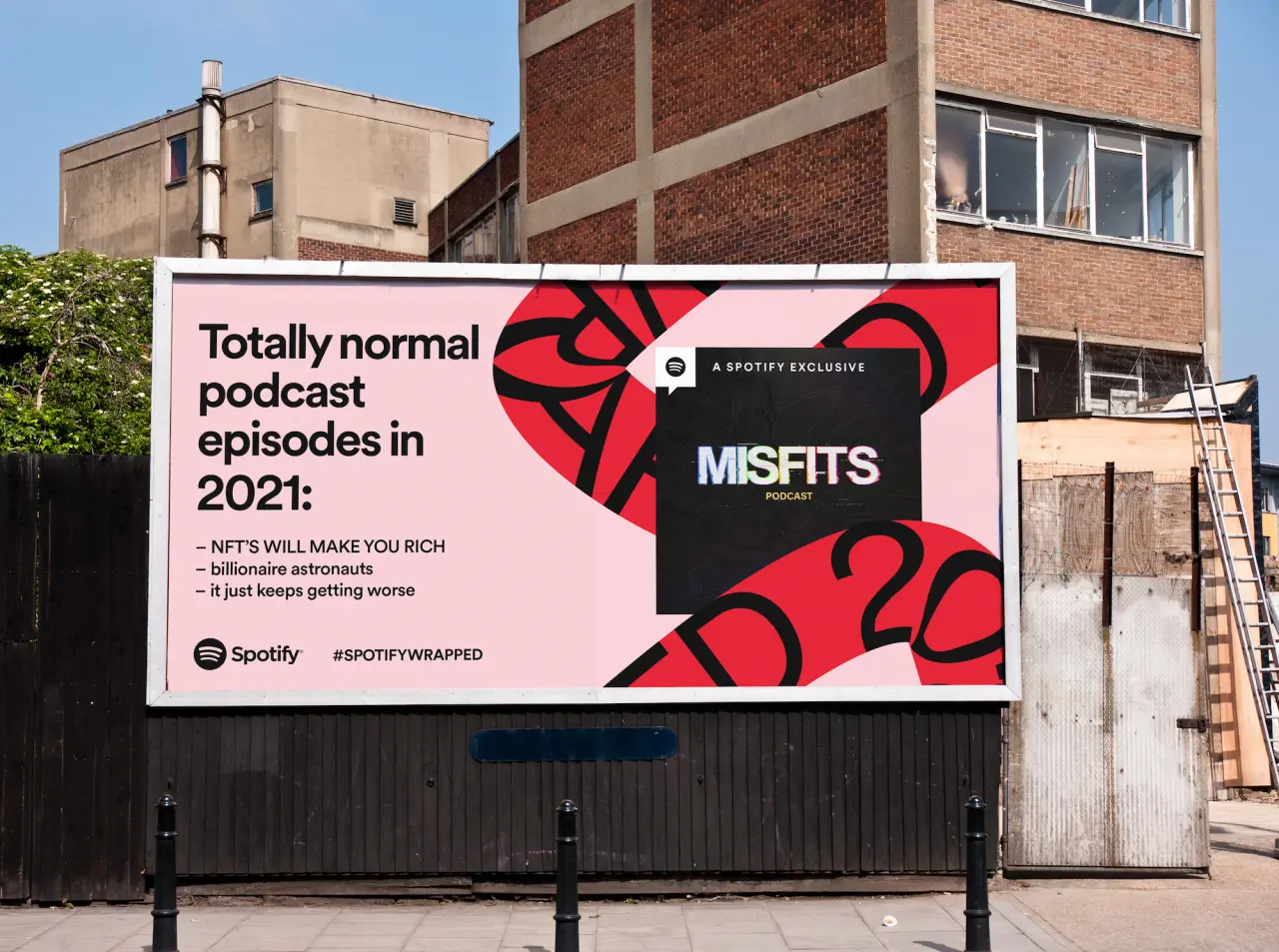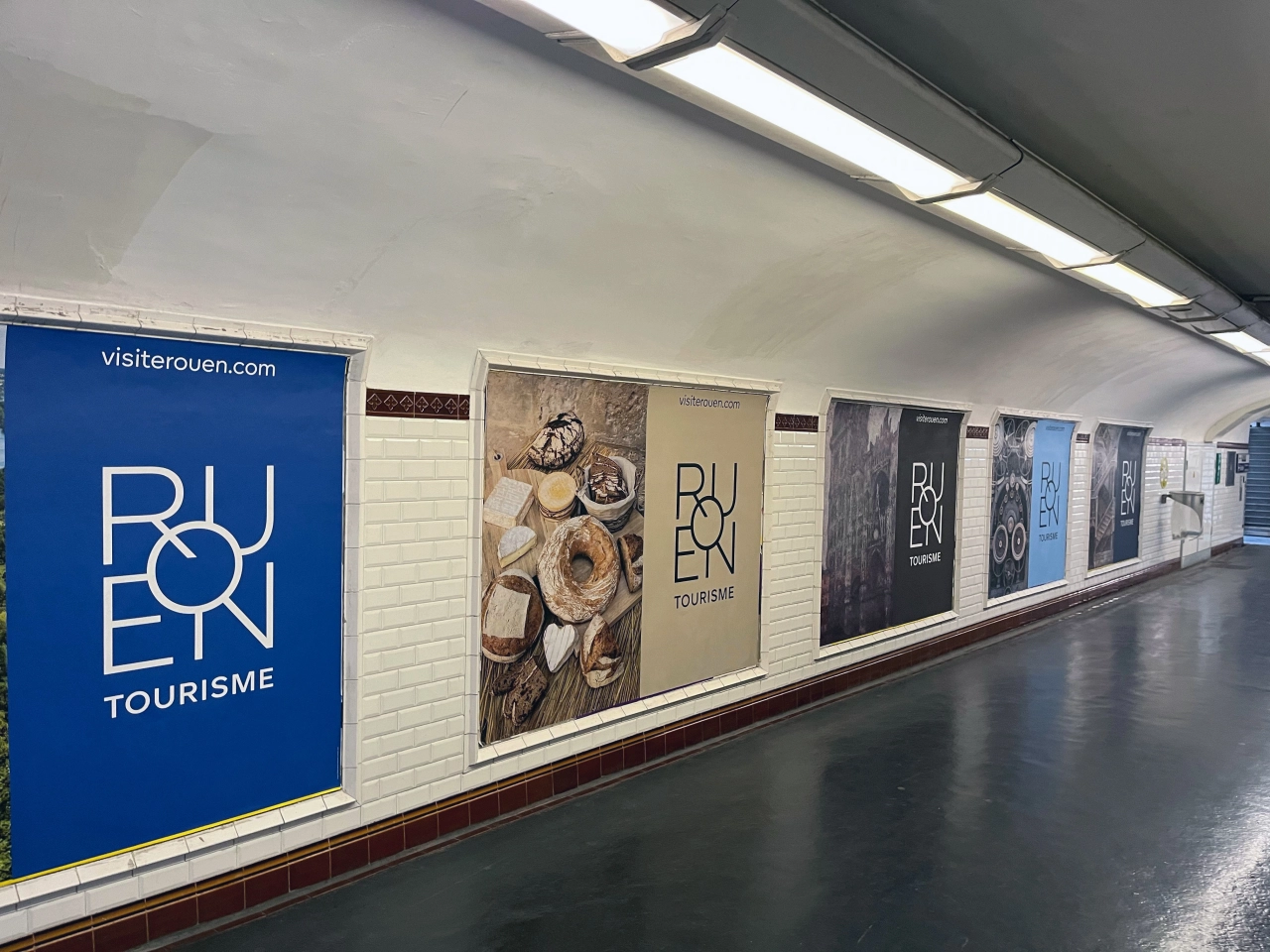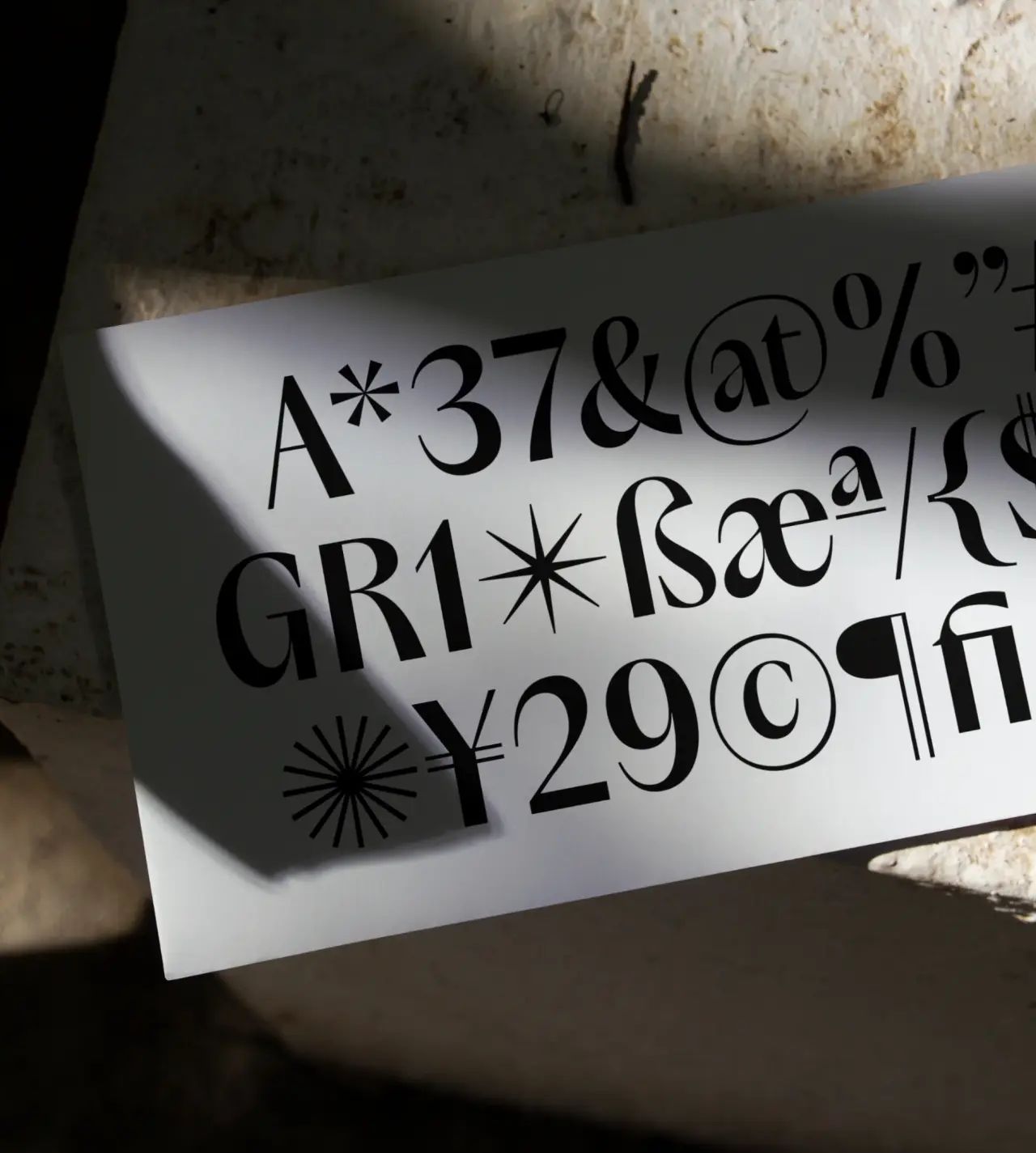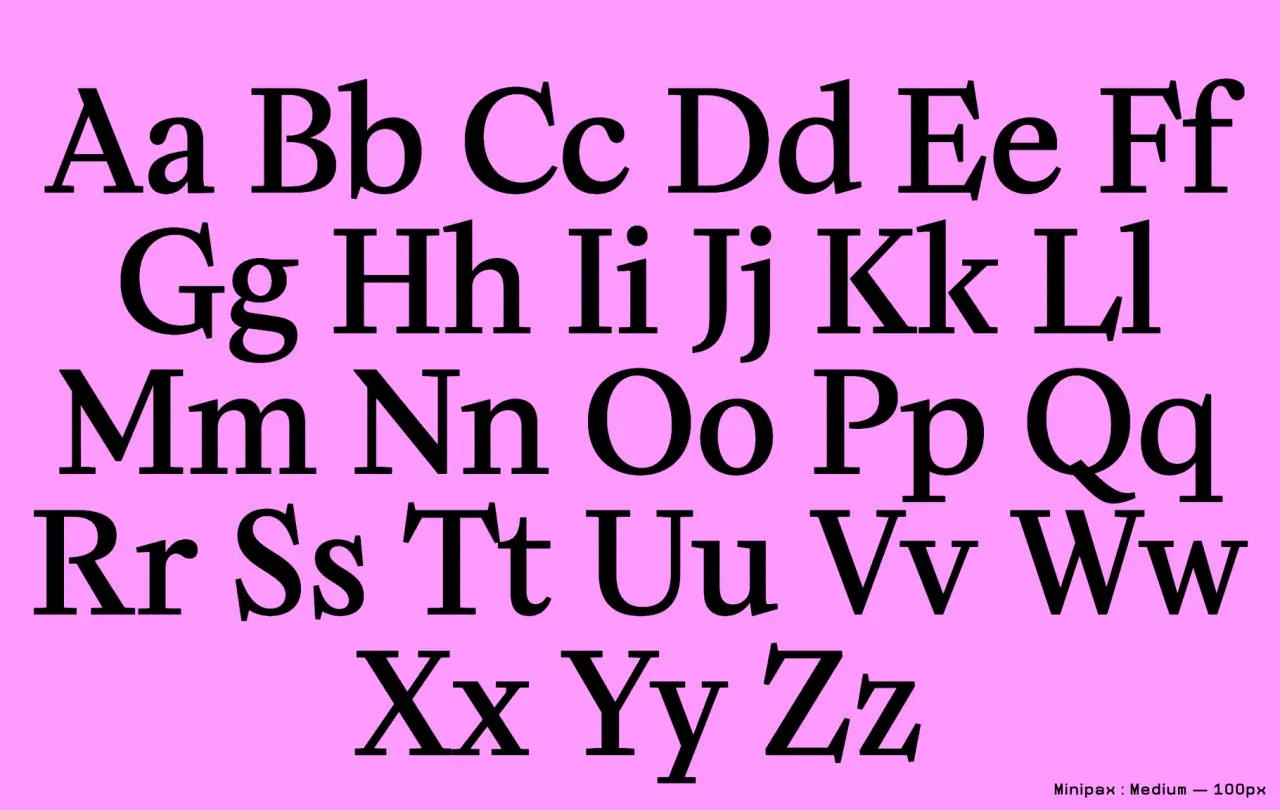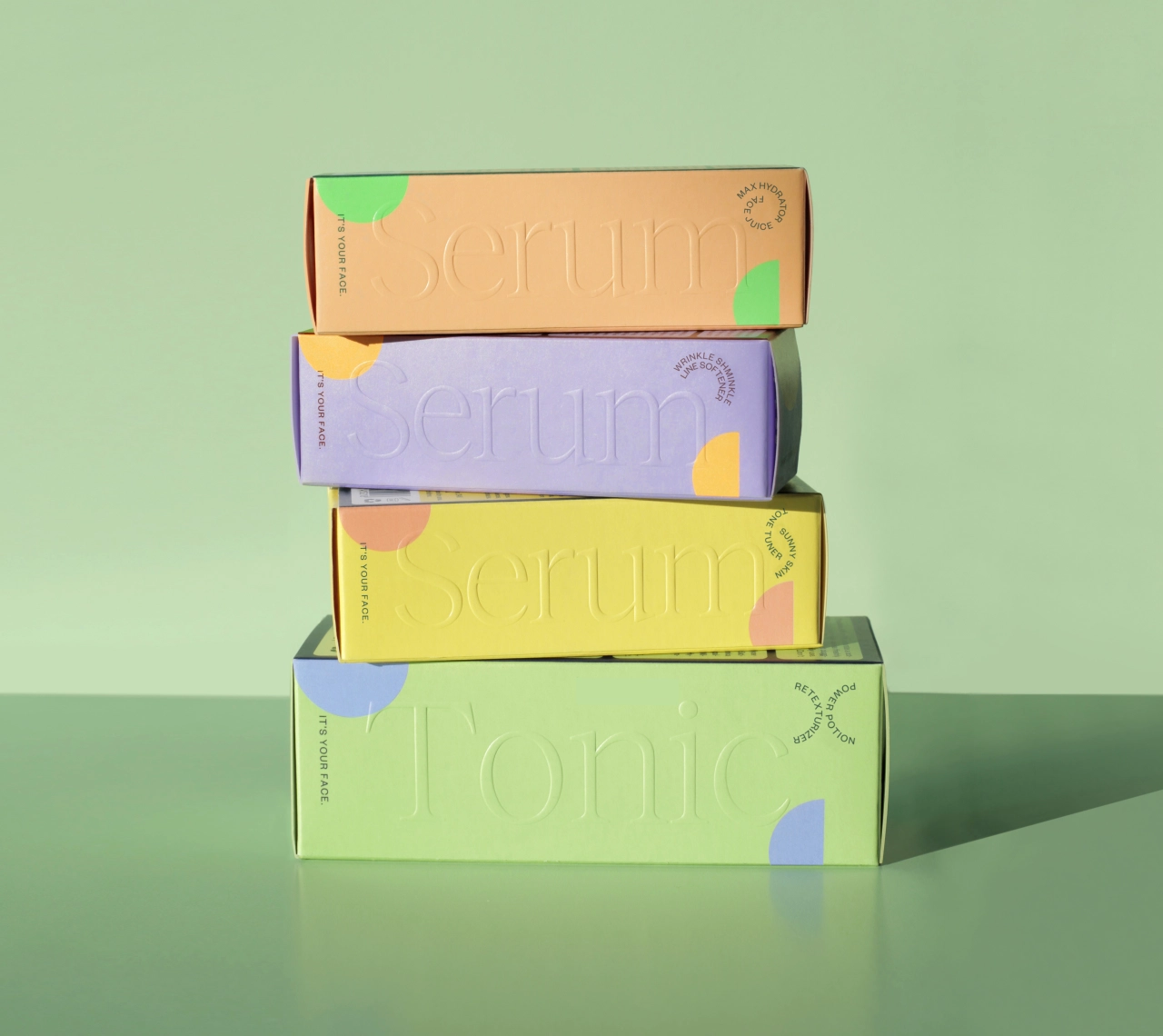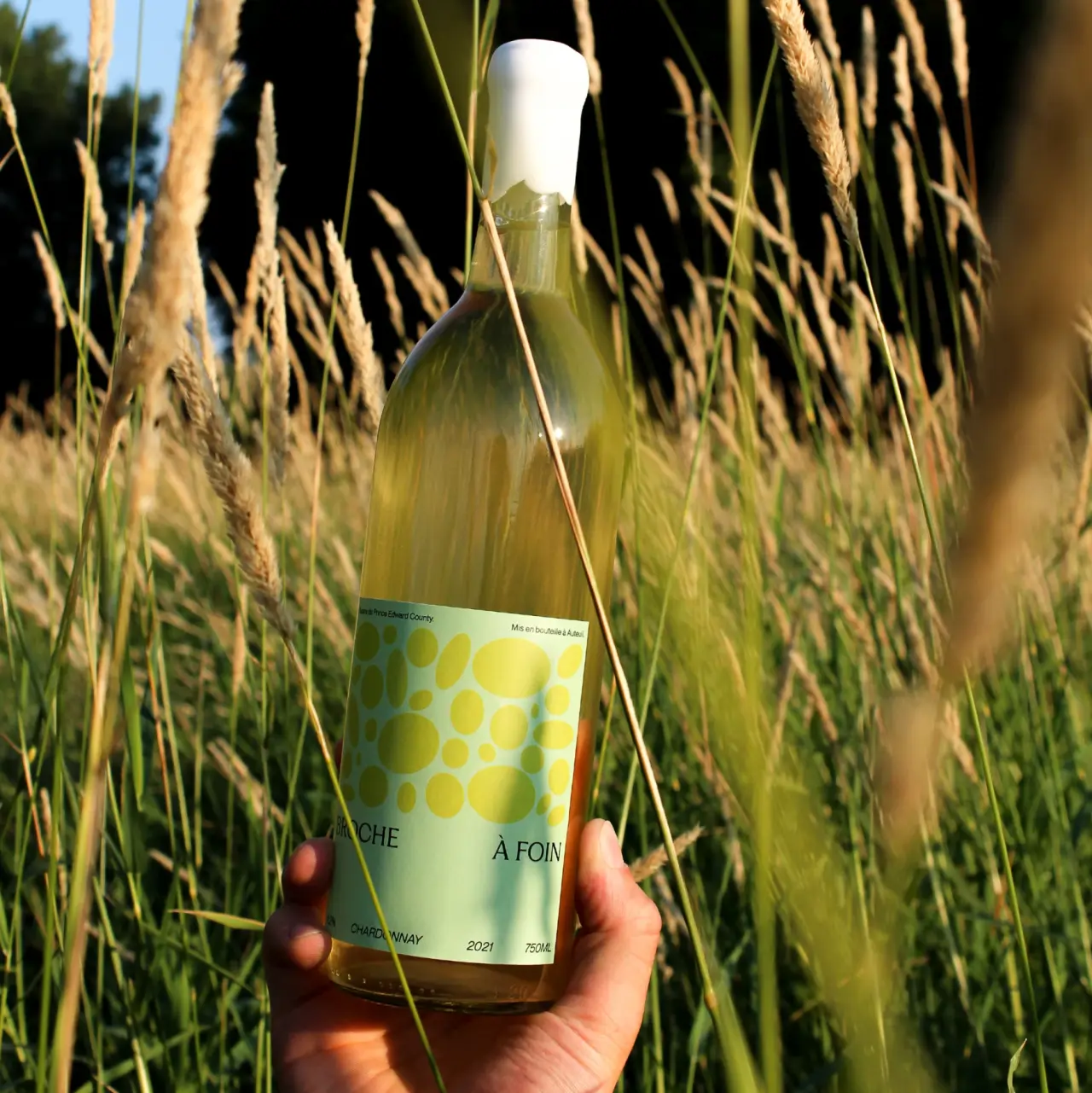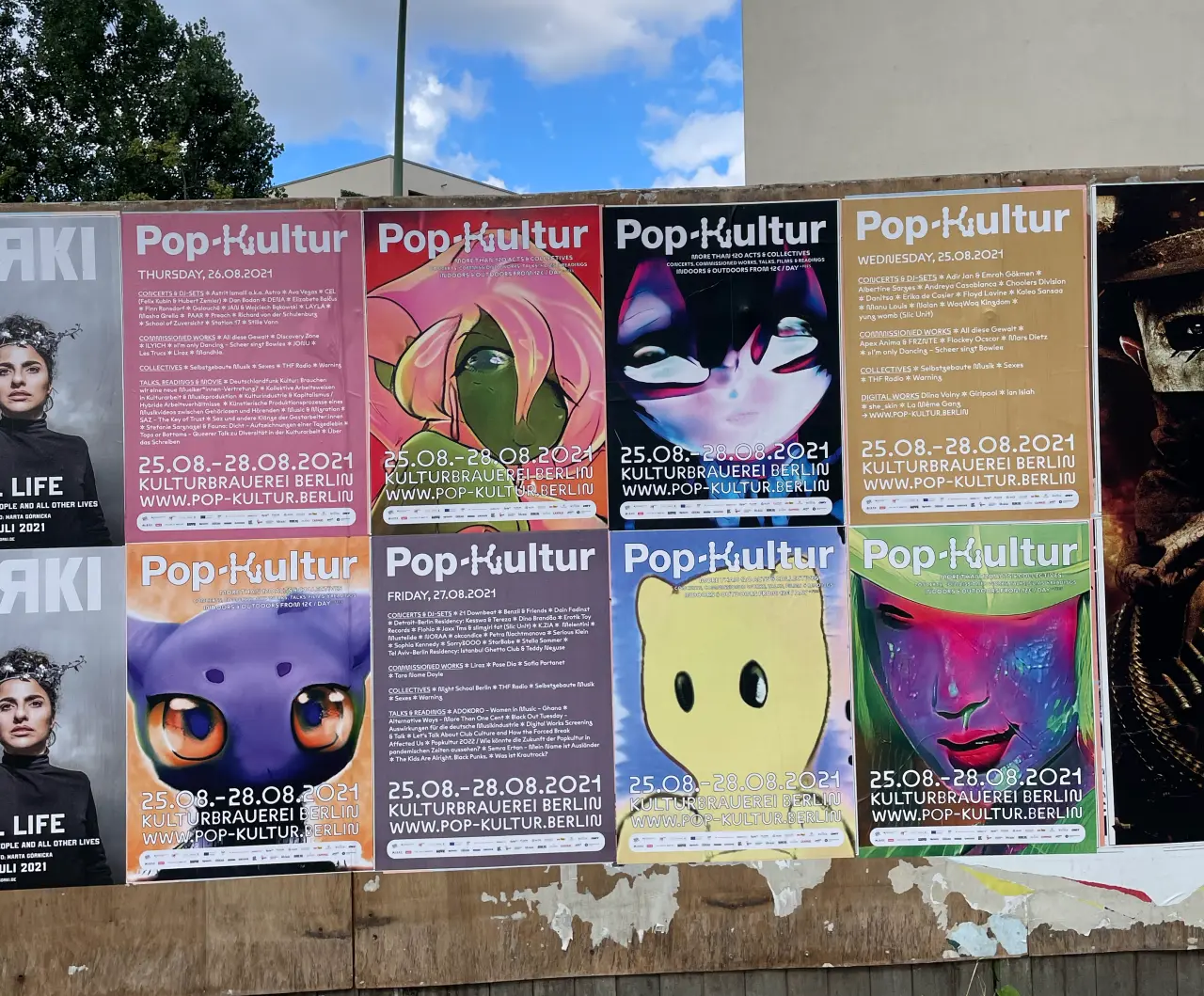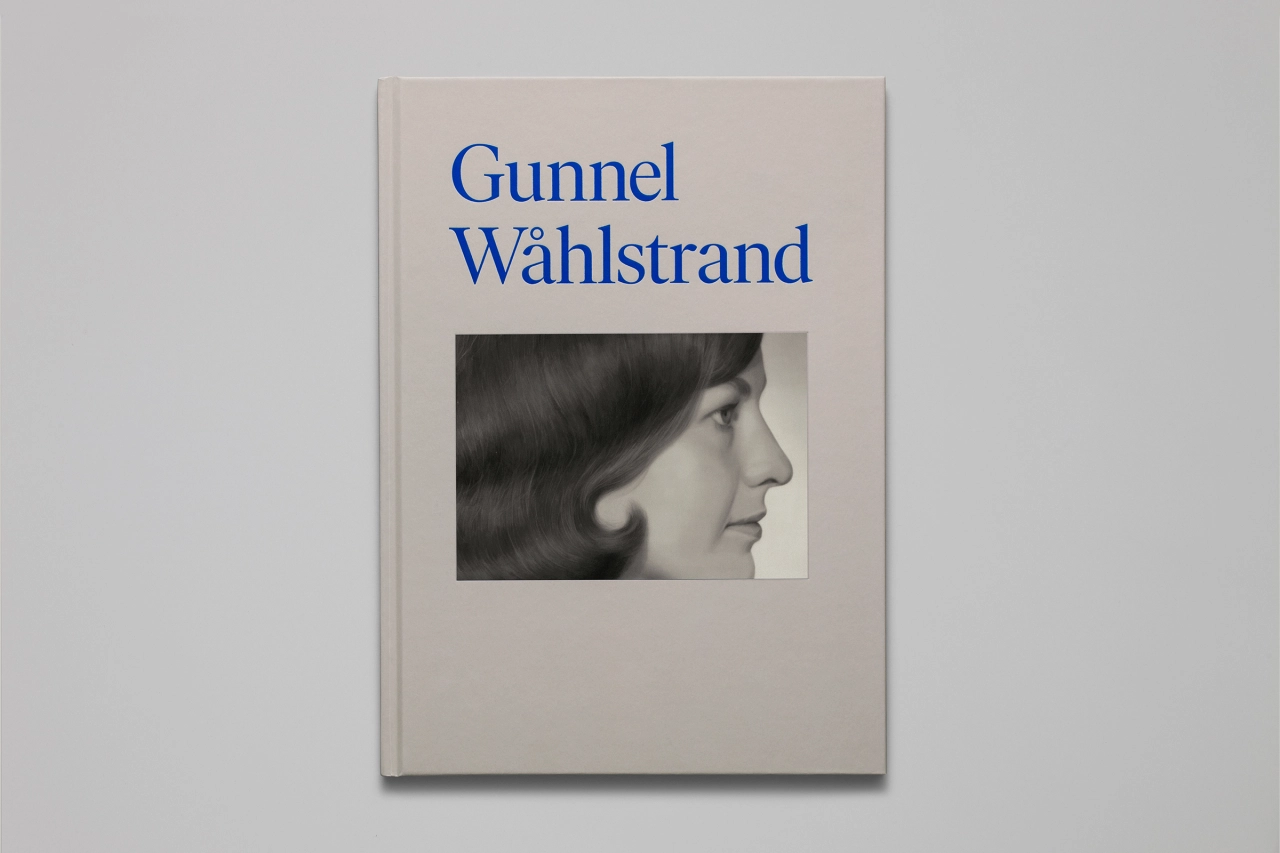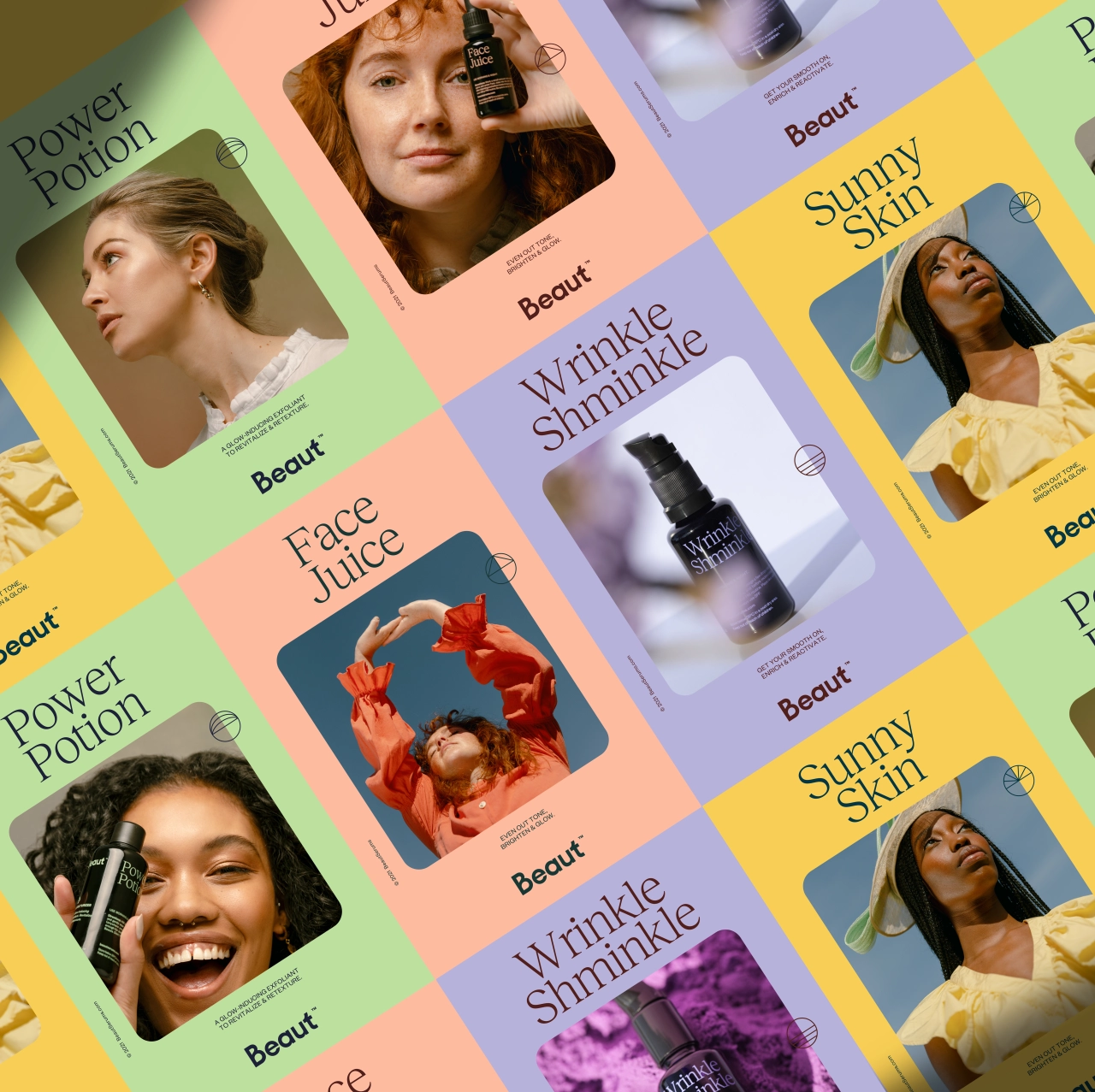
40 fonts that will be popular with designers in 2023
We reveal 40 hot typefaces to keep an eye on in 2023, including serifs and sans serifs, variable fonts, display fonts, and more. And we get pro-industry insight to discover the latest trends shaping type design right now.
The Future Mono by Klim Type Foundry. In use by Garbett for Career Trackers
Once you've been a designer long enough, it's common to find yourself sticking to the same, tried-and-tested typefaces year in, year out. But while that may make it easy to keep churning out good, solid, dependable designs, it does run the risk of becoming... well, a little boring.
So it's always good to look for new fonts that can help you mix things up, experiment, and hopefully come up with visuals that will entice and excite you.
To help you stay abreast, each year, we put a lot of effort into researching the fonts that are currently in use throughout the design world and whittle down the most important, useful and intriguing ones for you to consider. (Check out last year's roundup here). While our list can never be fully comprehensive, we hope it gives you a flavour of how 2022 has shaped next year's big expected hitters and what fonts will likely be big in 2023.
Of course, just because a particular font is "trending" doesn't mean you should use it. But you should at least keep your mind open to the possibility. In the words of Sarah Hyndman, author of the bestselling book Why Fonts Matter: "What I'd say about type trends is for designers not to get too hung up on them and to focus on what's appropriate for the audience. However, I've always found trends fascinating because they reflect the cultural attitudes of the moment."
With that in mind, below, you'll find 40 fantastic fonts for 2023. First, though, let's set some context as our experts point to some key font trends that have characterised 2022 so far, and we can expect to see more of over the coming 12 months.
Six big font trends for 2023
1. Accessibility for all
Accessibility is vital when it comes to type. After all, if members of your audience literally can't read the text you have typeset, you have failed them 100 per cent. So it's good news that discussion around neurodiversity and inclusivity has been one of the big typography trends of 2022, says Kirsty Minns, executive creative director at Mother Design.
That said, she still feels things need to be pushed further. "Brands can do so much more than producing larger type sizes and opening up kerning," says Kirsty. "You can still be imaginative, colourful and functional at the same time. With 17% of the global population diagnosed as neurodiverse, they make up a huge portion of audiences who need catering to. Accessibility and inclusivity will hopefully be essential to type conversations next year."
As a shining example, she points to Wolff Olins' rebrand for Understood, a non-profit organisation for those who learn or think differently. "This included a collaboration with Displaay Type Foundry and focused on understanding the needs of those with dyslexia and ADHD," says Kirsty. "It was brilliantly considered, tackling legibility head-on without compromising on brand distinctiveness. Making certain characters more distinguishable for readers and improving readability is a simple but well-considered approach, and one that more brands should replicate in 2023."
Understood rebrand by Wolff Olins, included a collaboration with Displaay Type Foundry
2. The trusty Geometric sans builds on its legacy
Is there no end to the enduring love of geometric sans? Inspired by near-perfect circles and squares, born out of Germany in the 1920s, its pioneers, Herbert Bayer, Jakob Erbar, and later Paul Renner, laid the foundations for what the design world still fondly uses today. But will 2023 continue to embrace this beloved group once more? Particularly as we look to timeless and familiar designs that build trust and stability in a seemingly chaotic world.
Interestingly, Creative Director Chris Skelton of branding agency Thompson believes we'll see brands actually move away from these typefaces that have prevailed for the past few years in search of "more ownable and distinctive styles". He says: "At the very least, big brands will look to customisation to ensure ownability over a very congested style — there's lots of good to be said of the geometric sans though, it's approachable, clear, accessible, unfussy and easy to use so it'll still be a fallback and easy to say 'yes' to style for many."
But Stuart de Rozario, director and designer at The Foundry Types, believes their popularity will continue in 2023. "Catering for many of the world's leading brands – Google, TikTok, Dolce & Gabbana and Toyota – they offer a timeless, classic, and minimalistic quality, a modern, open, and elemental aesthetic but sympathetic to a broad scheme of ideals and disciplines. The next big thing in type? Geometric sans – and always will be."